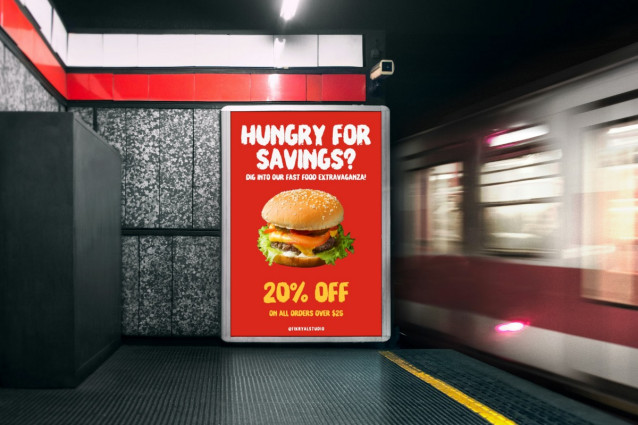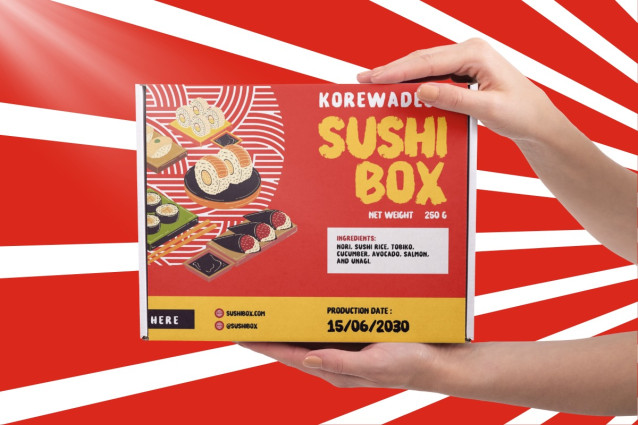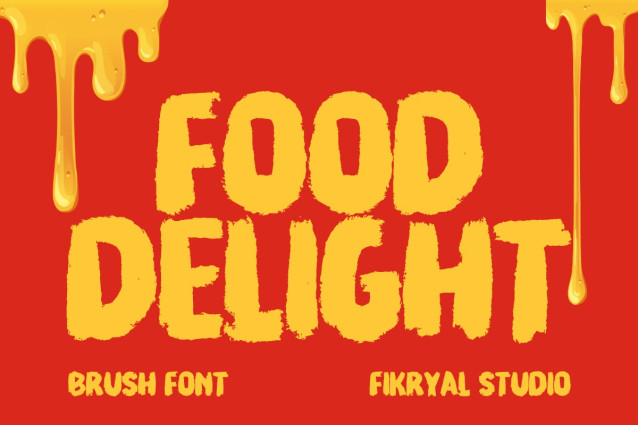
Food Delight Font
Food Delight Font – Display Brush Font: an all-caps typeface designed to add a delightful touch to your food-related products. Inspired by the vibrant and appetizing world of culinary delights, this font is perfect for creating eye-catching displays that draw attention and entice customers.
Food Delight features a bold and playful brush style, making it ideal for packaging, menus, posters, and any design that needs to convey the deliciousness of food. Its unique character and dynamic strokes evoke the joy and excitement of enjoying a delightful meal, ensuring your product stands out on the shelf.
With Food Delight – Display Brush Font, your designs will not only look appealing but also create a sense of hunger and desire, driving more sales and engagement. Elevate your brand and make every bite look as good as it tastes with this irresistible font.